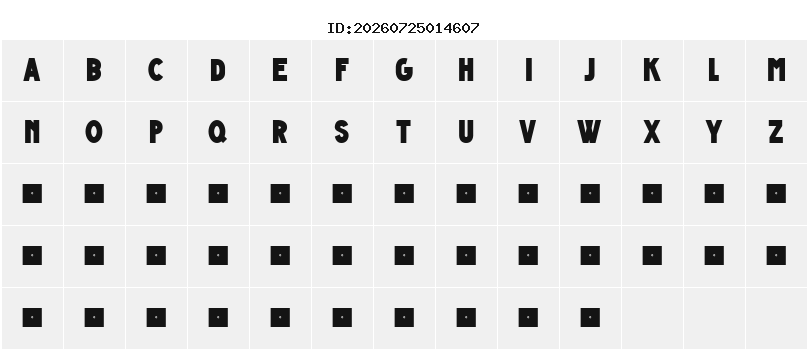
• Font Name: Grande Andretti - limited chars
• Font ID: RuggeroMotta: Grande Andretti Bold: 2012
• Full Font Name: Grande Andretti Bold - limited charset
• PostScript Name: GrandeAndretti-Bold - limited charset
• Character Count: 217
• Designer: Ruggero Motta
• Manufacturer: Factorio.us collective
About Grande Andretti - limited chars.ttf
Grande Andretti - limited chars.ttf is a modern, elegant sans-serif font designed for ultimate readability and visual harmony. Perfect for branding, headlines, web design, and print materials.